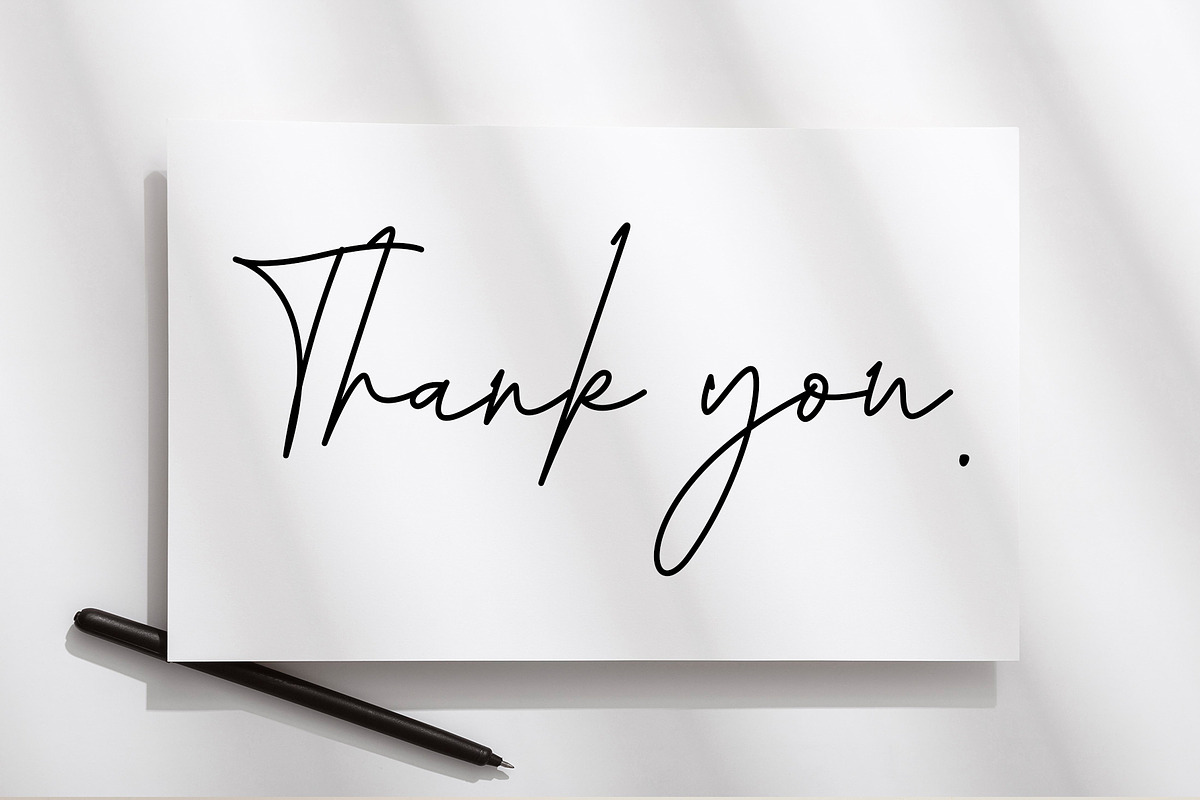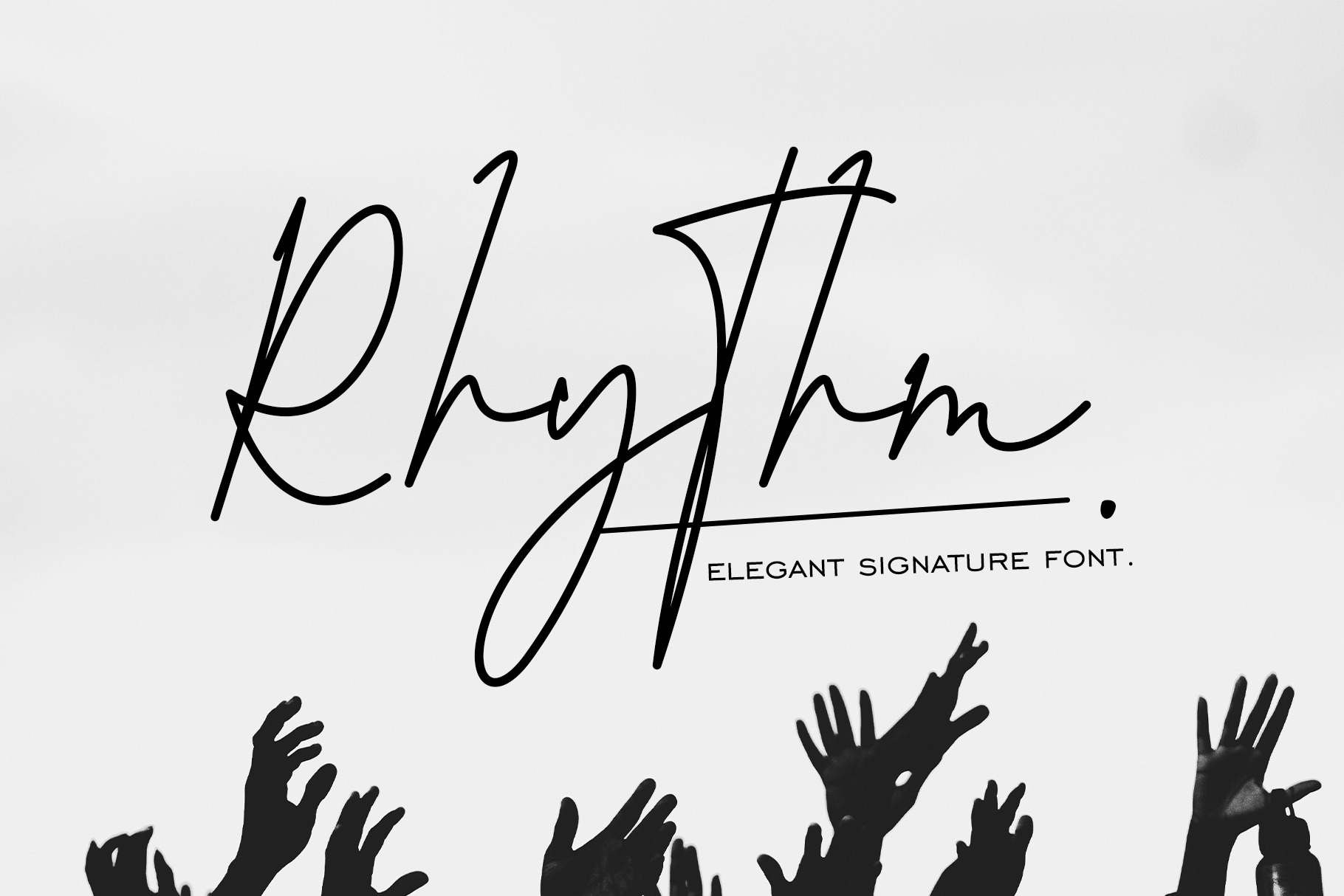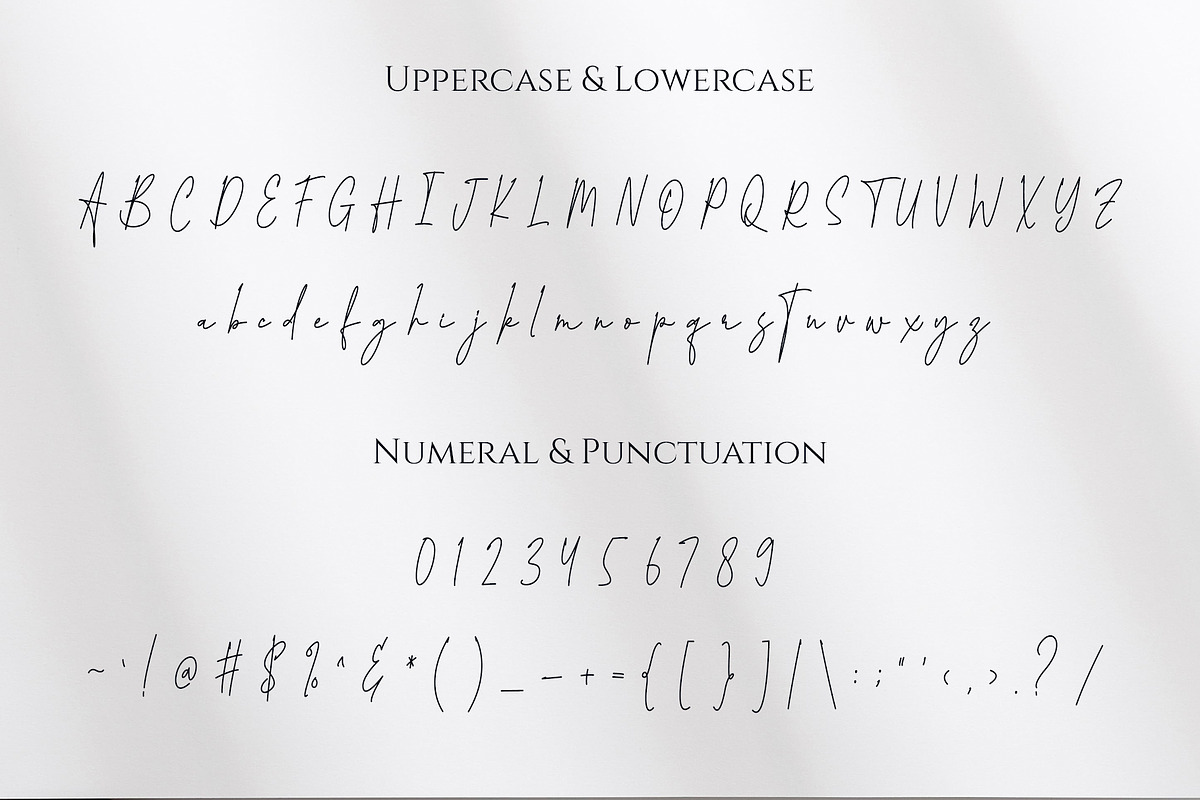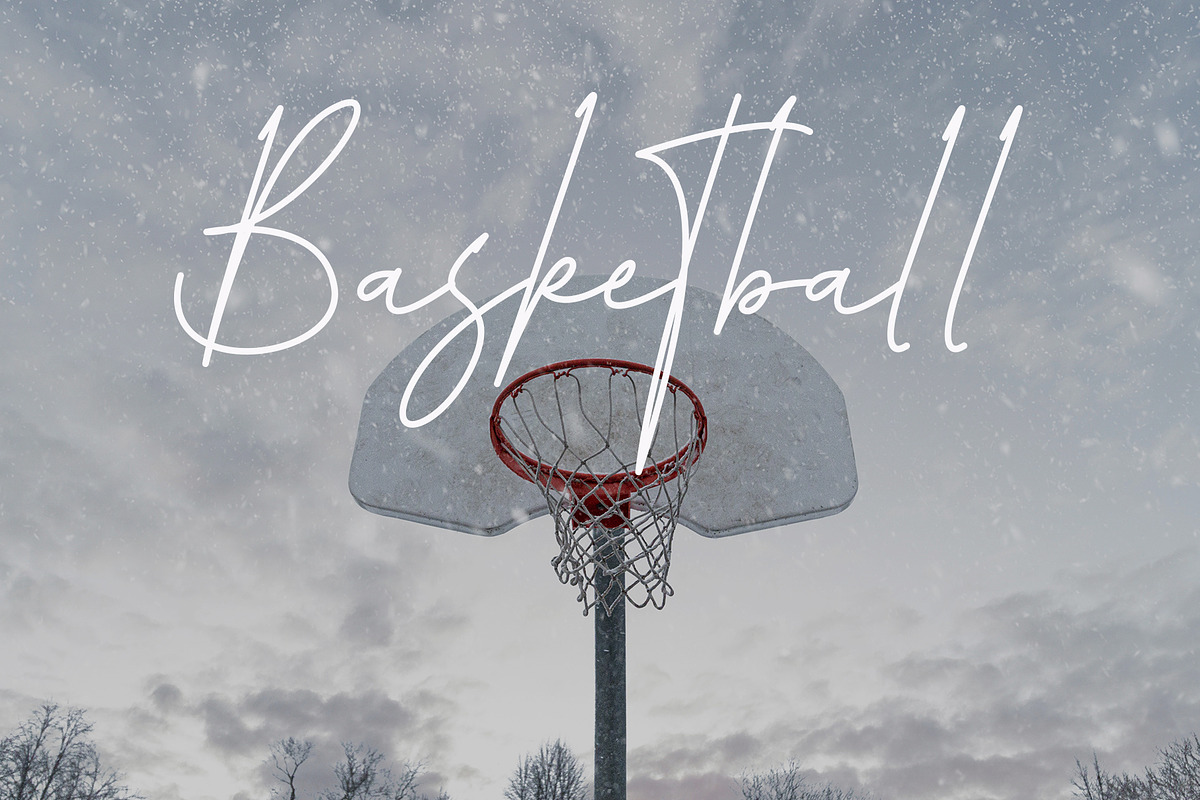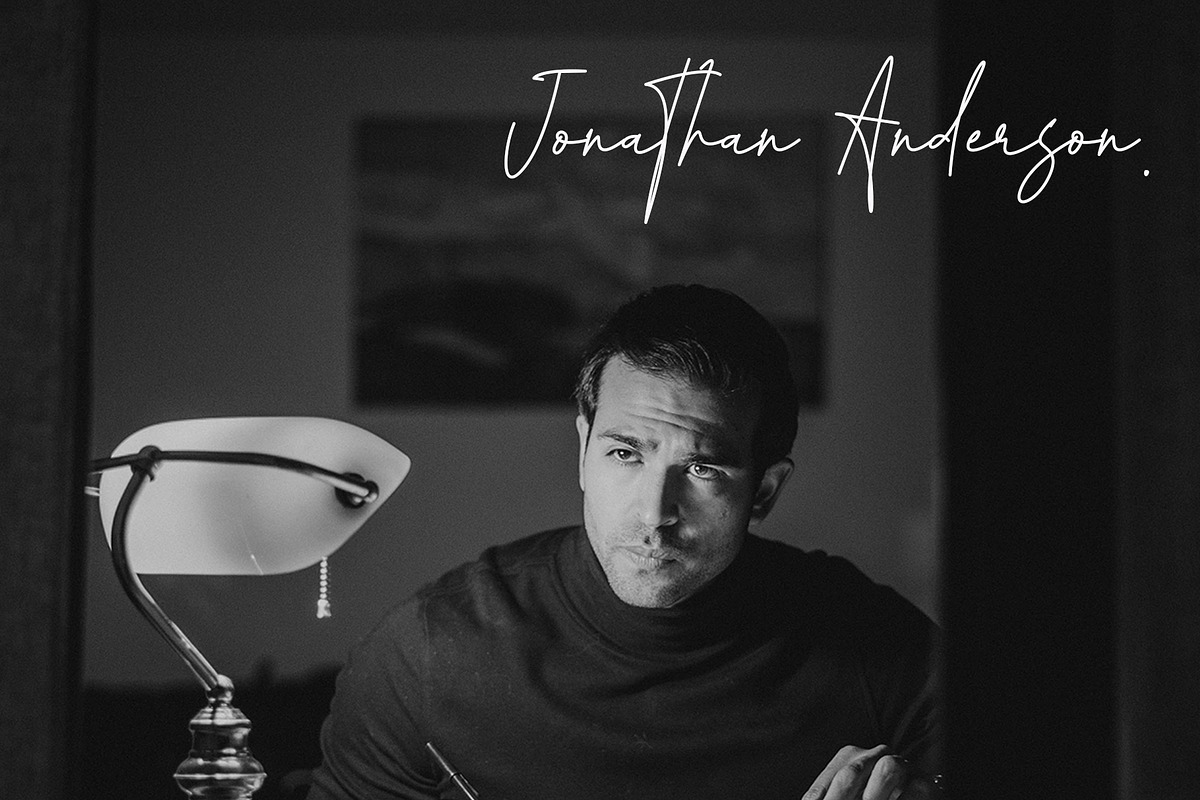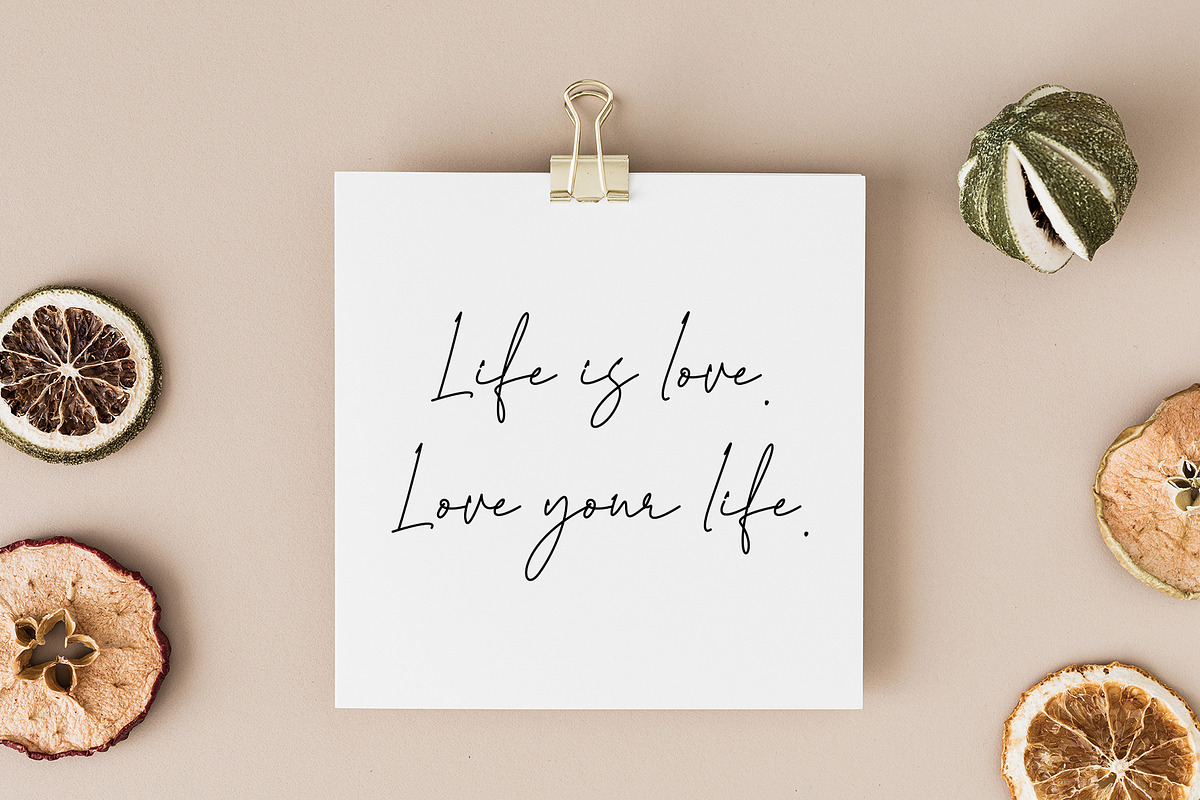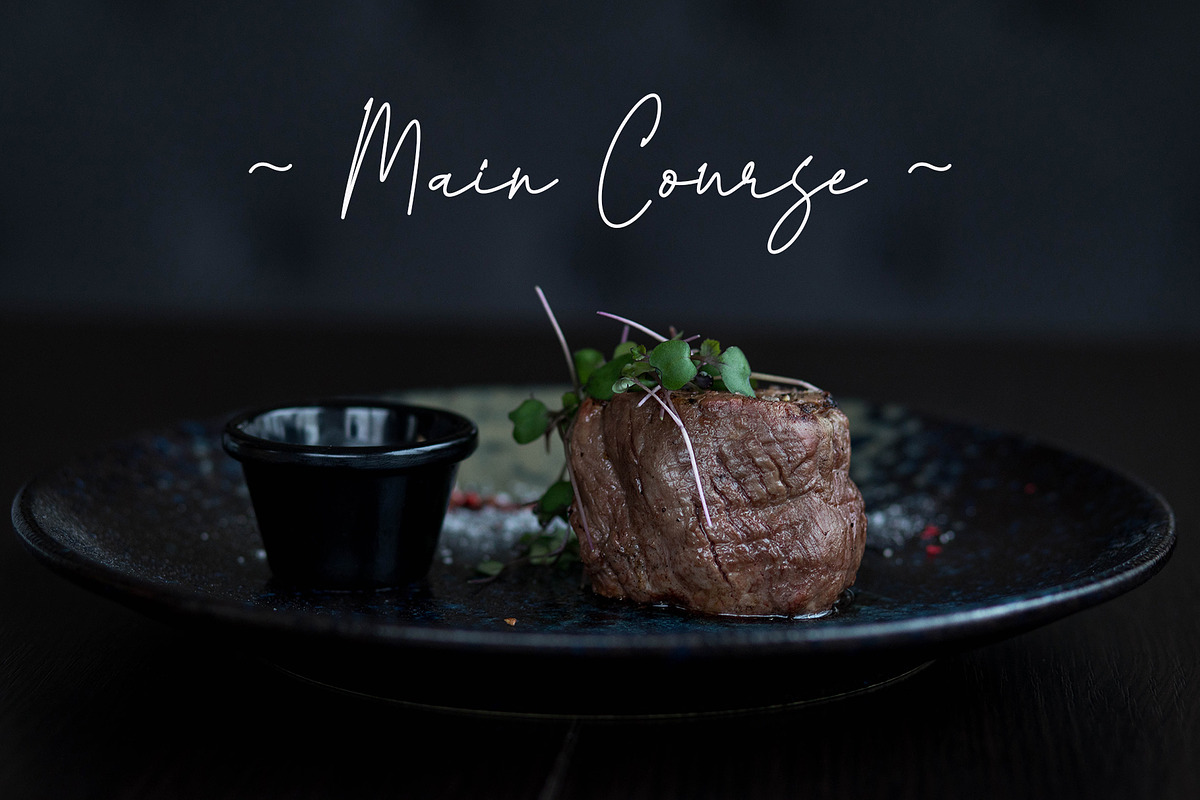
Rhythm - Elegant Signature Font
Rhythm is a signature font with a very strong character, like a stroke and an artist's signature, it will be perfect for your classy projects that will need a touch of elegance and style. You'll fall in love when these complement all your great projects!